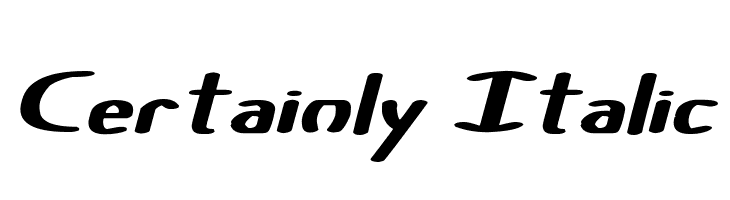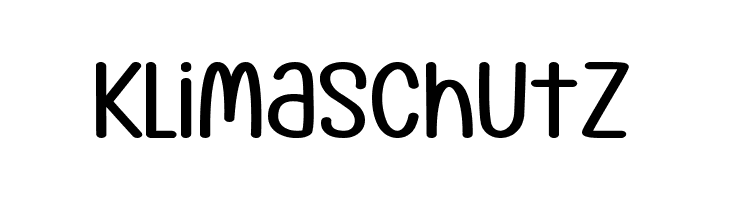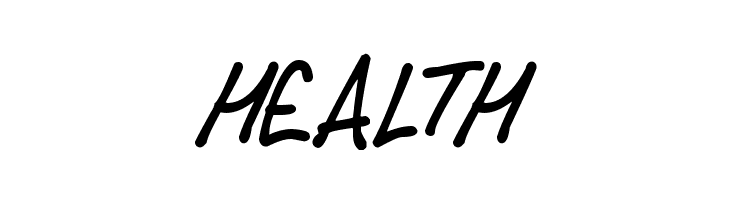
( Fonts by halofandi )
A playful, bubble-like decorative font with bold, outlined characters.
( Fonts by Chequered Ink )
A bold, geometric font with sharp edges and a modern look.
( Fonts by Fanastudio )
A bold, playful font with rounded edges and a friendly appearance.
( Fonts by Mohammad Azmil Bahar )
A playful, hand-drawn font with tall, narrow characters and a whimsical style.